Looking at the Most Popular Google Fonts
The impact Google Fonts has had on the web is undeniable. Since its somewhat humble beginnings in 2010, the 800+ fonts now hosted by the library have been viewed well over 19 trillion times. Of course, the likes of Adobe and others have followed suit with font repositories of their own. The difference is that everything Google Fonts has to offer is free.
And it’s a good thing that free web fonts have come along. Typography on the web used to be incredibly boring. It started out with the limitation that a specific font had to be on a user’s system in order to be viewed correctly in a browser. Eventually, @font-face brought more options to the table. But licensing issues were often difficult to deal with (if dealt with at all).
The brilliance of Google Fonts is the flexibility you have with where and how you use it. You can load fonts via Google’s service or download them to place on your own server or device. Plus, they receive contributions from font artists worldwide. That has led to an incredible variety of available styles.
Of course, some fonts tend to be more popular than others. Thanks to the openness of the library, Google provides a nifty Analytics page that breaks down how much usage each font receives. Let’s take a look at 10 of the most-used fonts in the library. Note that, in some cases, multiple members of the same font family are separate entries on Google’s list. We’ll avoid repeating ourselves in those instances.
Open Sans
It’s probably not much of a surprise that Open Sans leads the way as you tend to see it all over the place. WordPress even used it as the default dashboard font at one point. It’s clean, easy-to-read and comes in an abundance of styles. The condensed version also ranks as one of Google’s more popular choices.
Roboto
Again, we Google Fonts fanatics love our sans-serif type. This one is great for body text as it lends itself well to reading at smaller sizes. The look is also very modern and matches up nicely with more minimalist designs. It also saw a massive 65% jump in usage from February 2017-18. Also note that the condensed version is the sixth most-used font as well.
Lato
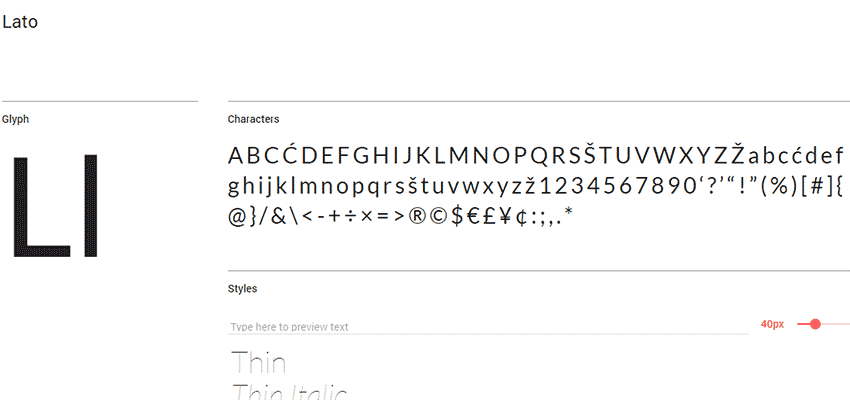
Did I mention the obsession with sans-serifs? Lato is one that I do find myself using a lot. As with its mates in the top three, it comes in a variety of styles and is a jack-of-all-trades. I think that helps to explain its popularity, along with the fact that it fits in with modern design trends.
Slabo 27px
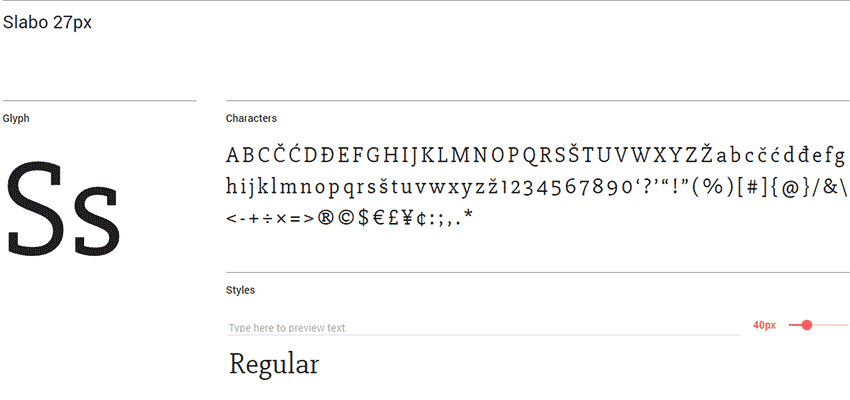
Finally, a serif in sight! What makes Slabo 27px a bit unique is that both it and its sister font (Slabo 13px) are optimized for viewing at the pixel size reflected in its name. This flavor is a great choice for producing clear, readable headlines.
Oswald
Many designers look for web fonts that resemble classics – but without the licensing hassles. Oswald is one that is pretty well on point with the popular Alternate Gothic family. It has that same timeless look that brings a touch of class to any website.
Source Sans Pro
This font is actually historic in that it’s Adobe’s first-ever open source typeface. Their intention was to create a font that would be a good fit for UI. It certainly does hold up as being very readable. There is a nice spacing between characters and plenty of styles to choose from.
Montserrat
Inspired by the Montserrat neighborhood of Buenos Aires, Argentina, this font sports a classic urban style. It’s a great all-purpose font that adds a bit of pizzazz to both headlines and body text. Its popularity has also led to the Alternates and Subrayada versions.
PT Sans
Created for the “Public Types of Russian Federation” project, Google reports that the majority of PT Sans’ usage is in Russia. In fact, it features character sets for every title language in the country. That being said, designers around the world are taking advantage of this font’s clean and modern look.
Raleway
Raleway was developed as a headline font meant to be used at larger sizes. However, it does work quite well for body text as well. Personally, I don’t know if any other font on this list fits the modern, minimalist style better. It’s also available in a dots version.
Lora
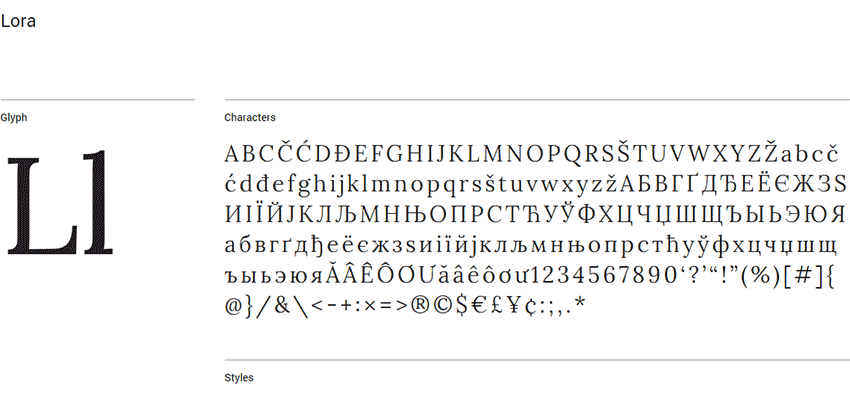
Rounding out the list is Lora, a subtly-detailed serif font. While it only comes in four basic styles, that seems to be more than enough for just about any use.
Bringing Great Typography to the Web
What stands out about the fonts above is that they are overwhelmingly a reflection of their core audience: designers. While the library is undoubtedly used by non-designers as well, the choices at the top of the list seem to show a professional attitude towards type. Notice the lack of any comic or whimsical styles.
Overall, these fonts have brought about a typographic revolution to the web. That’s something we designers should all be thankful for.